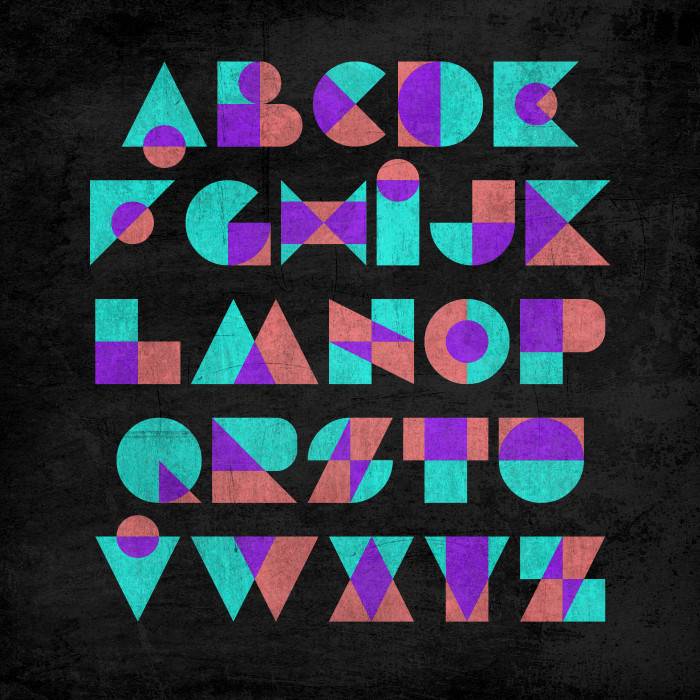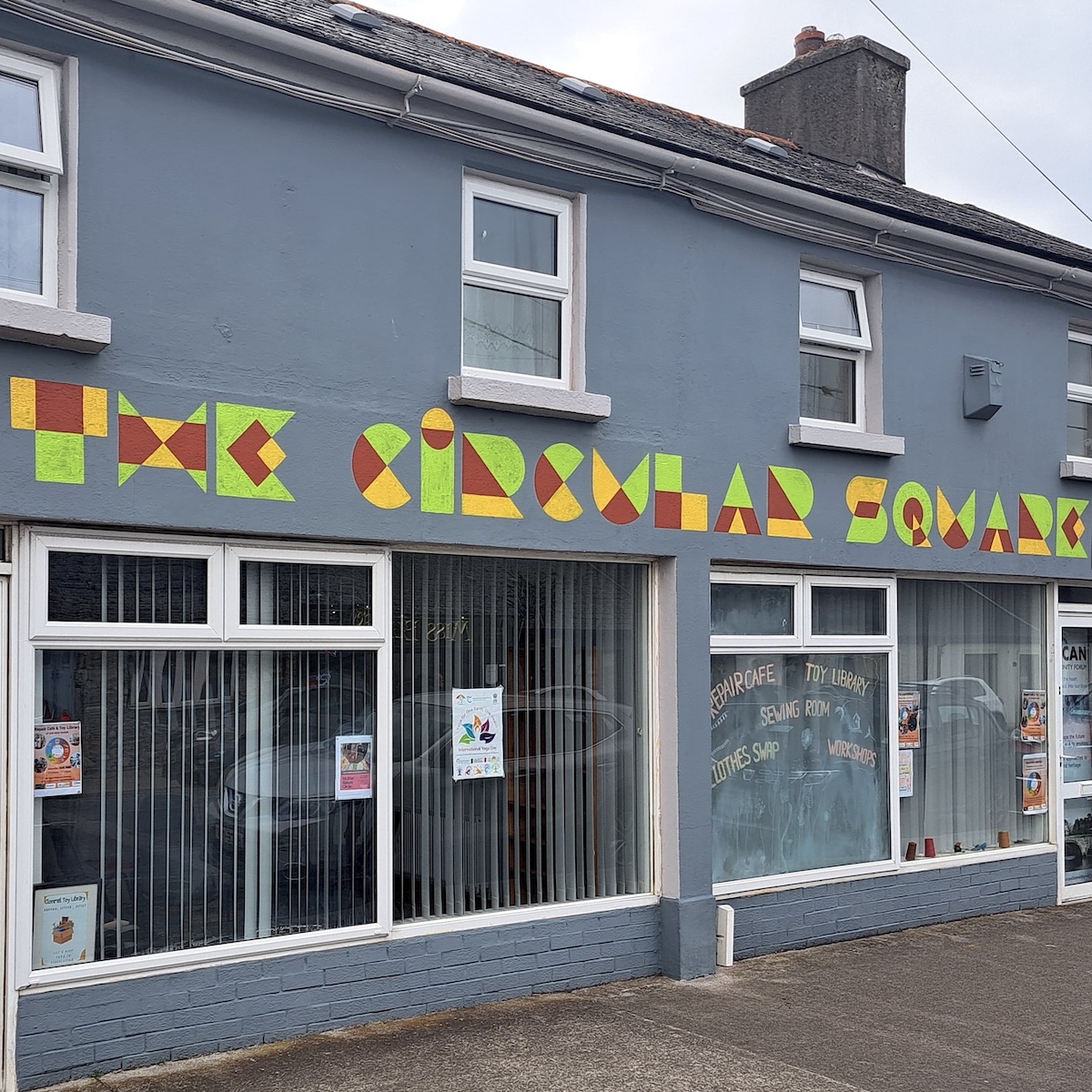
the geometry, the overlapping glyphs, the colors, all spectacular~
charming!
Faaantastic-fantastic work! It remind me some afrojet trys like this. That was an idea to improve now with the colour posibilities and I think he would try it. (BTW, the sample here is from your "offstruct rbg" font) Love it!
Thanks @swash.buckler, @jirinvk, @Rob Meek, @SwedishTypeCorporation! Thanks @elmoyenique, I had a look at @afrojet's 2009 Brutal Exchange of a Smug for Some Faith, some interesting and very different solutions to the same concept: only Z is the same. It would be nice to see it developed as a colour fontstruction!
I painted this signage for a community project in County Tipperary, Ireland yesterday. It is based on this FontStruction, but they asked me to make small changes to some of the letters to improve legibility.
It's always so fun seeing fonstructions in the wild!